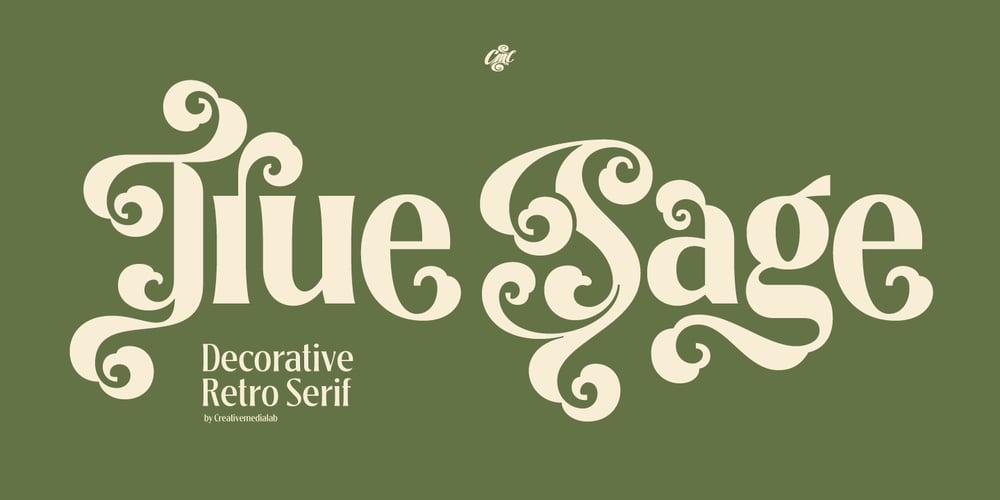
True Sage Font Family was designed by Kadek Mahardika and published by Creativemedialab. True Sage contains 8 styles and family package options. True Sage is a pretty decorative serif family. Contains Eight weights from thin to black. Vintage retro style dressed with pretty swirly alternates makes the lettering look pretty and unique, perfect for your heading, title, or branding projects.